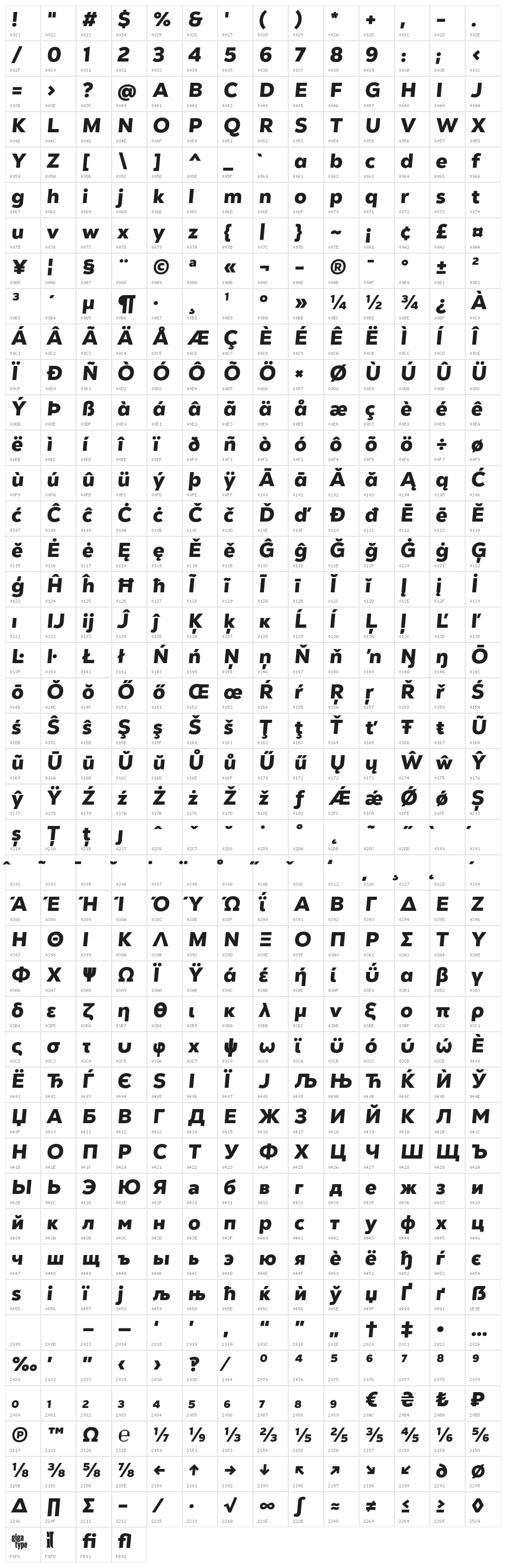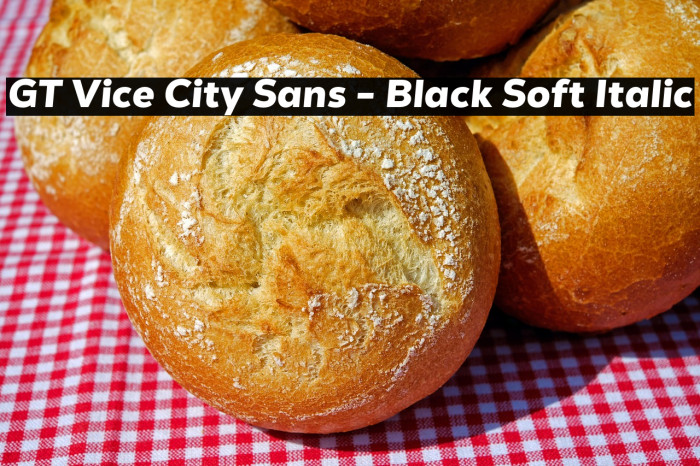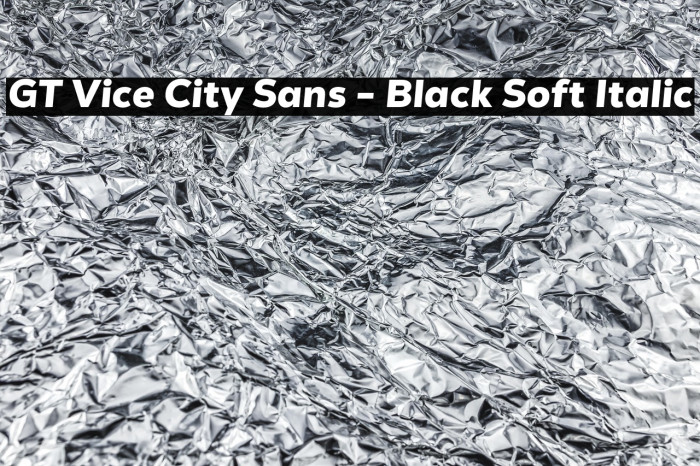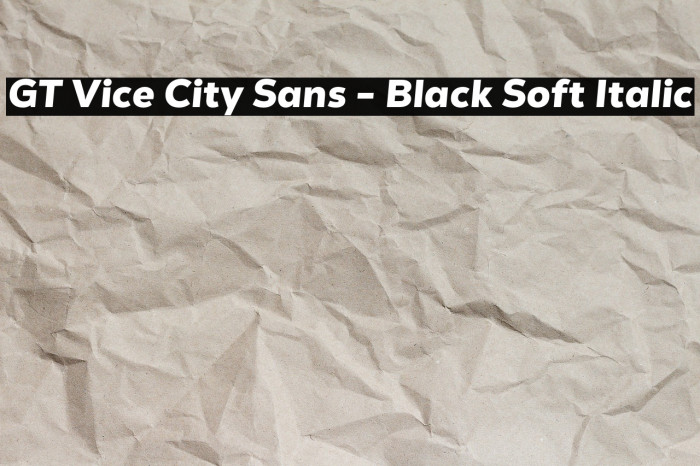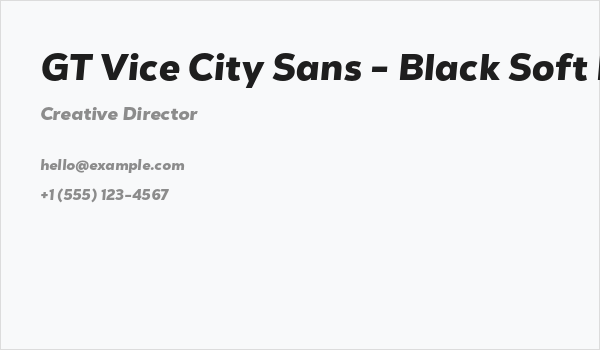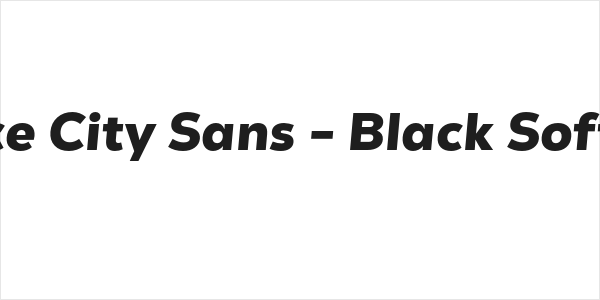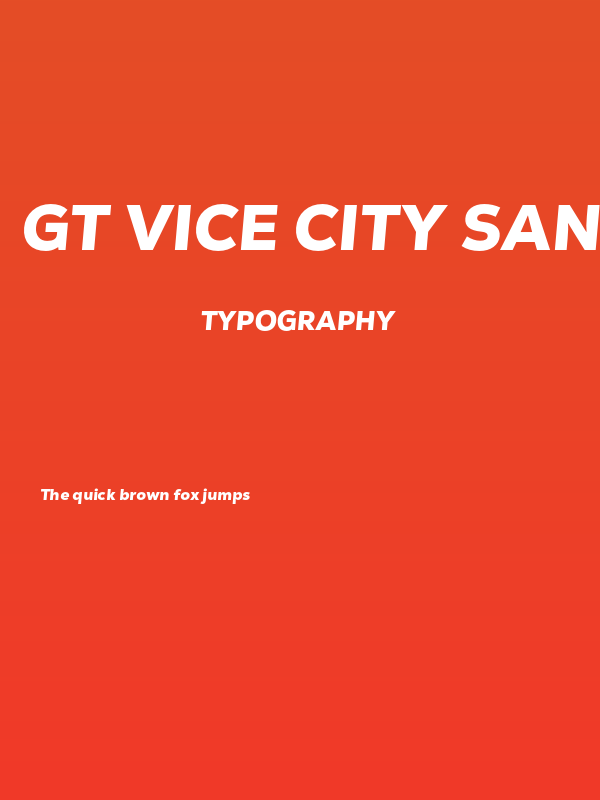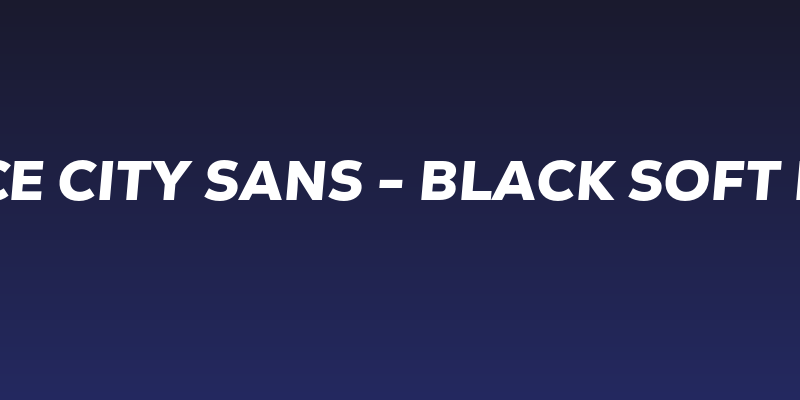
GT Vice City Sans - Black Soft Italic Font
GT Vice City Sans - Black Soft Italic Description
A bold, italic sans-serif font with a soft, rounded appearance, suitable for modern and dynamic designs.
| Proposed Projects | Branding, advertising, headlines, posters. |